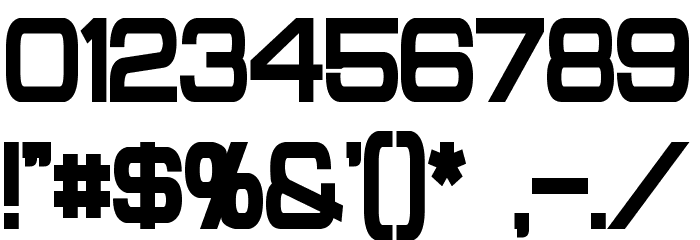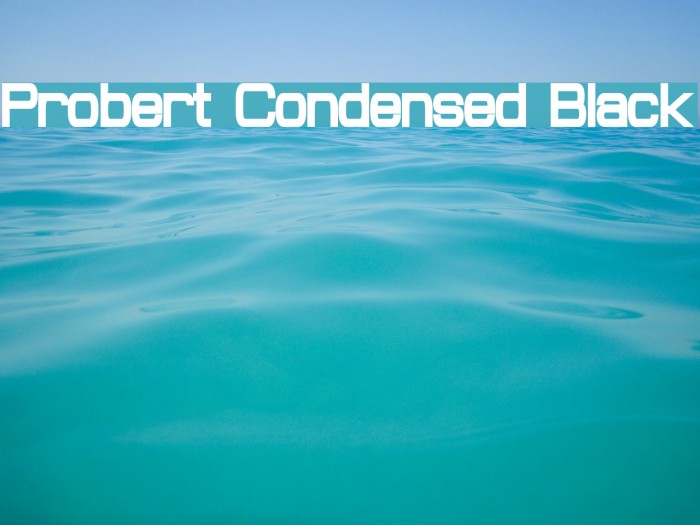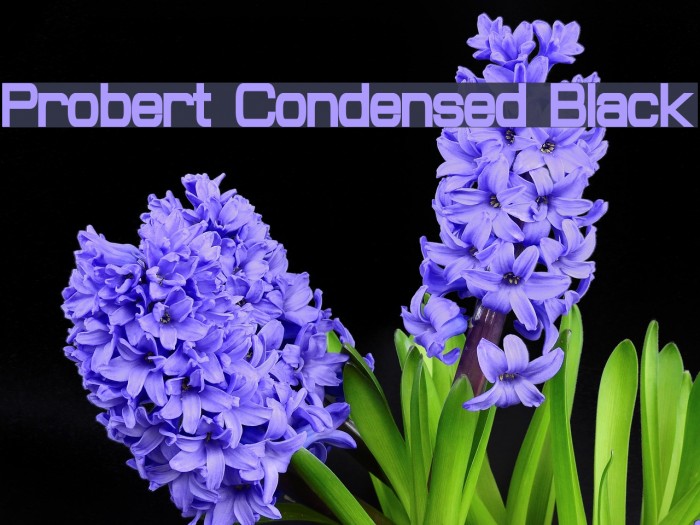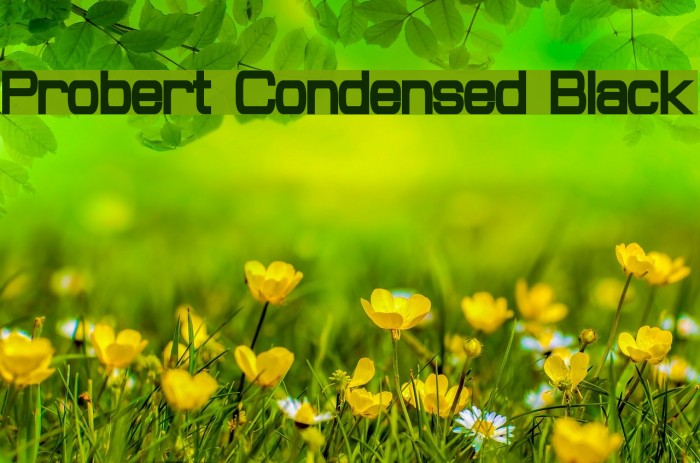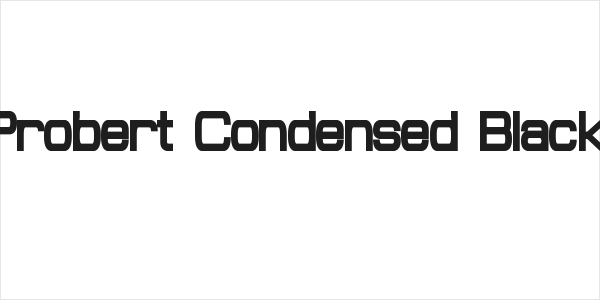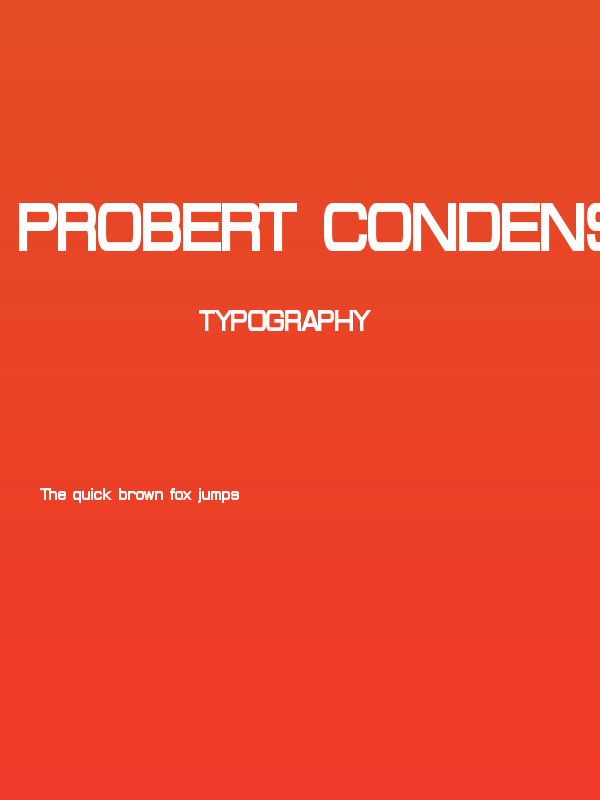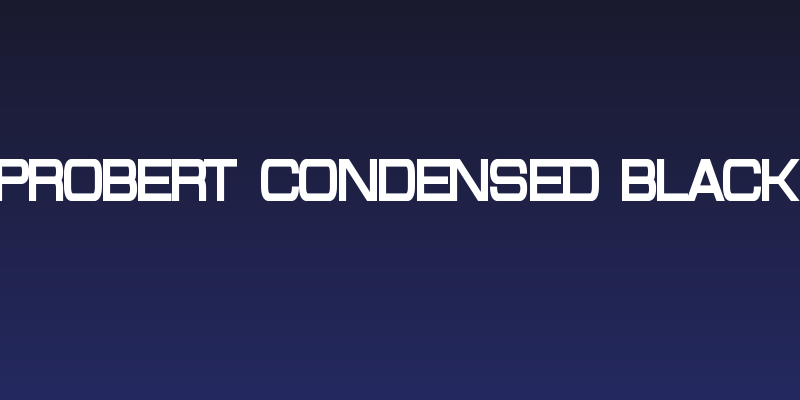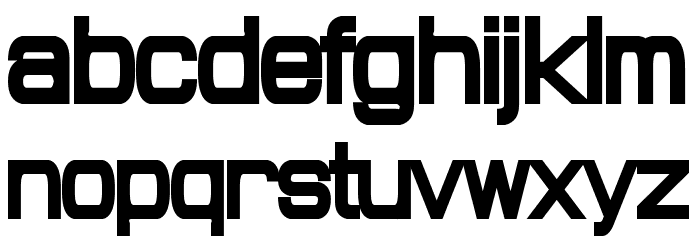
Probert Condensed Black Font
Probert Condensed Black Description
This font features a bold and condensed style, characterized by its strong geometric shapes and uniform stroke widths. The uppercase and lowercase letters are designed with a modern aesthetic, offering a clean and impactful appearance. The numerals are equally bold, ensuring readability and consistency across different uses. Special characters are included, maintaining the same bold and condensed style, making them suitable for various design needs. The overall look is sleek and professional, ideal for making a statement in any design project.
| Proposed Projects | Ideal for headlines, posters, branding, and any design requiring a strong visual impact. |